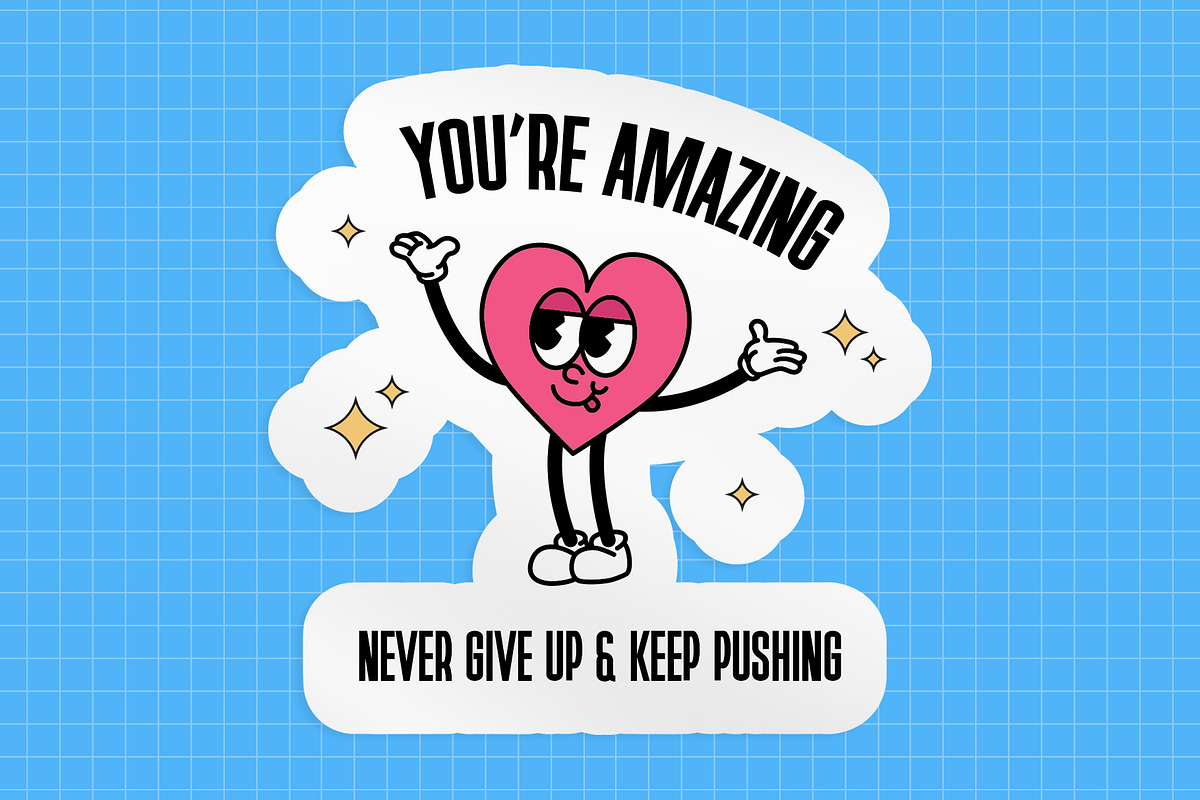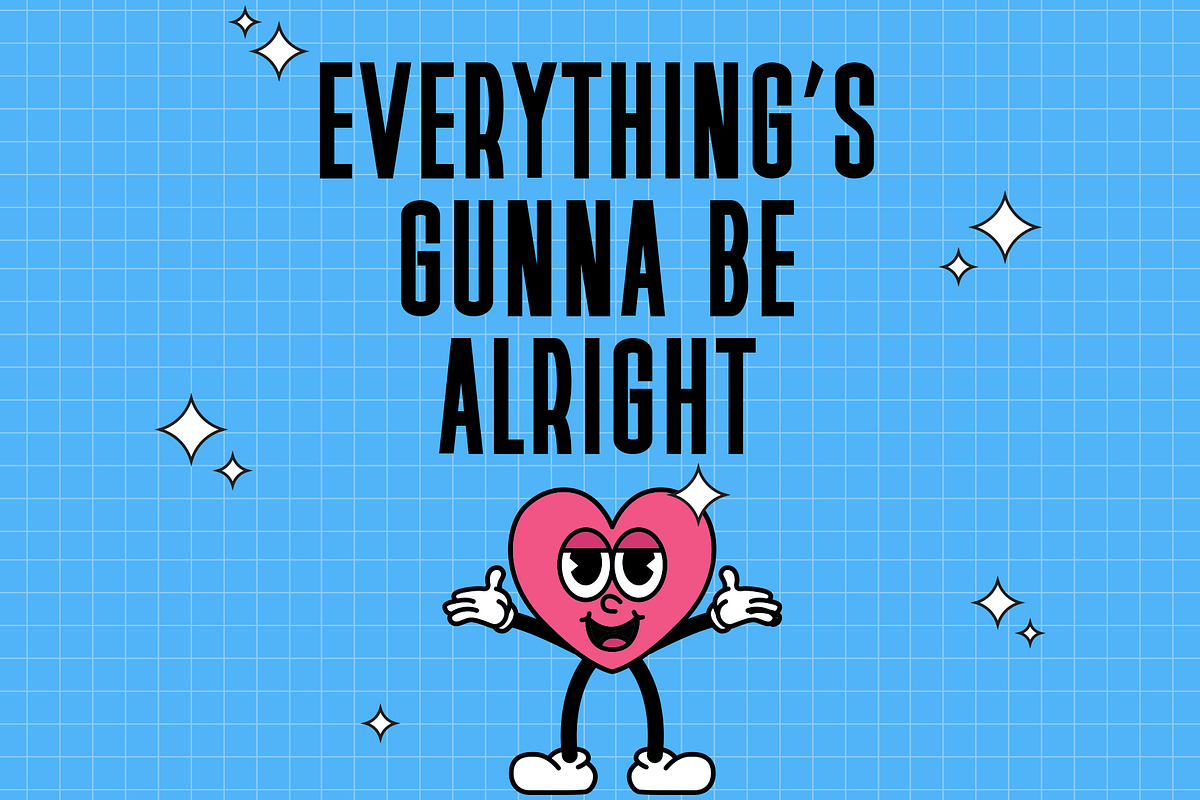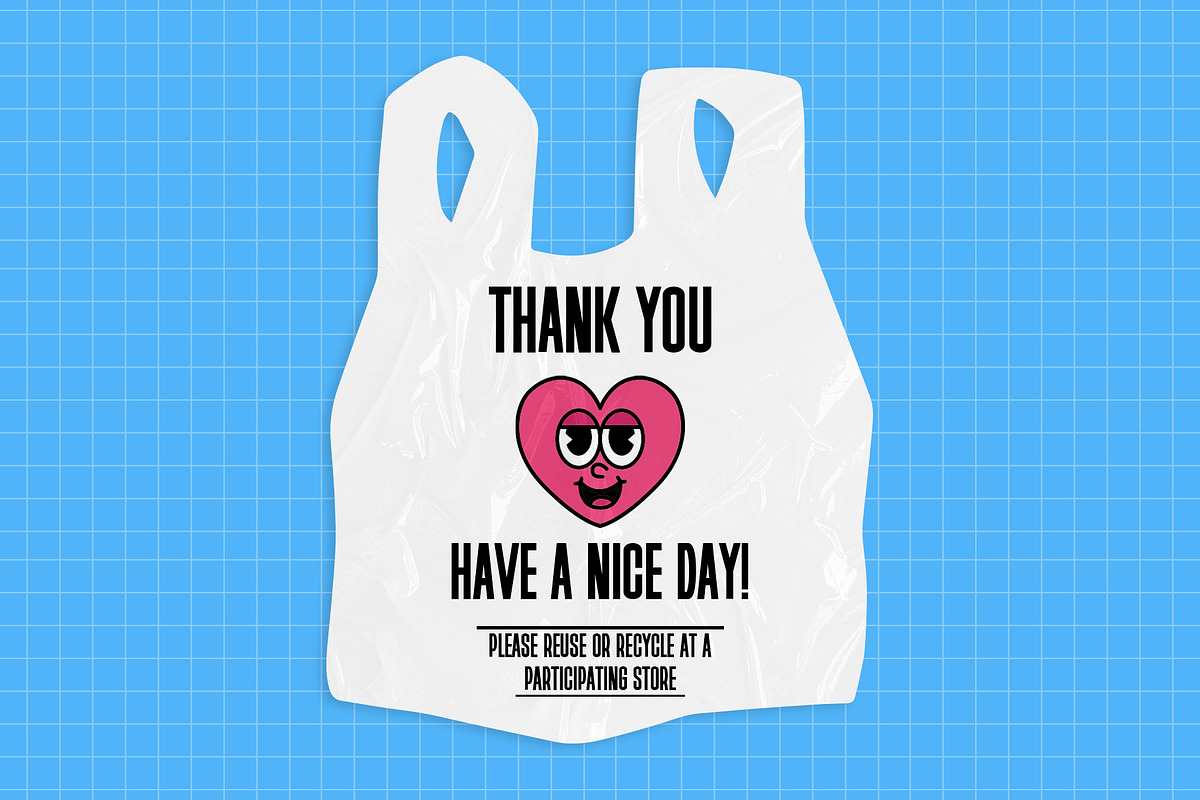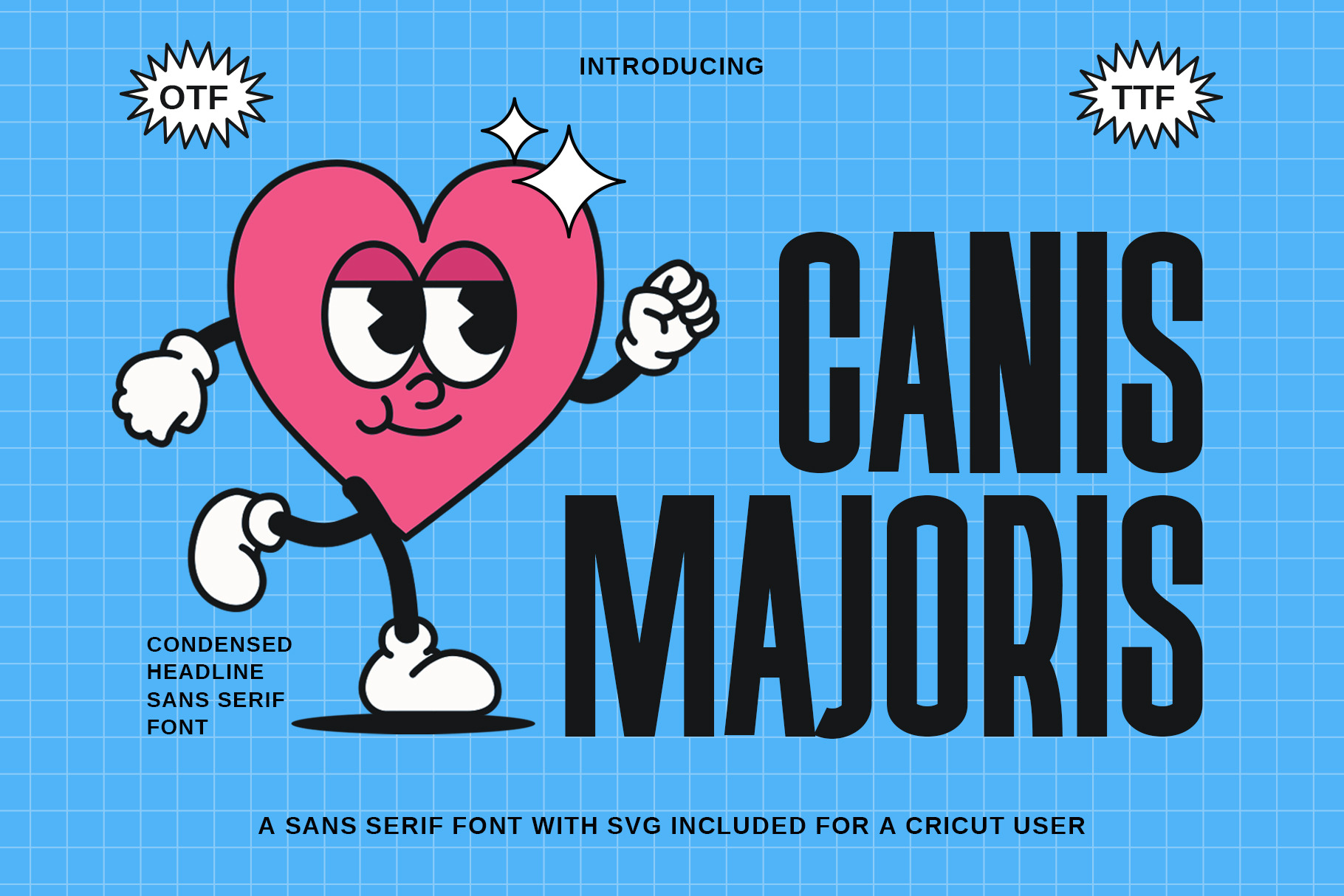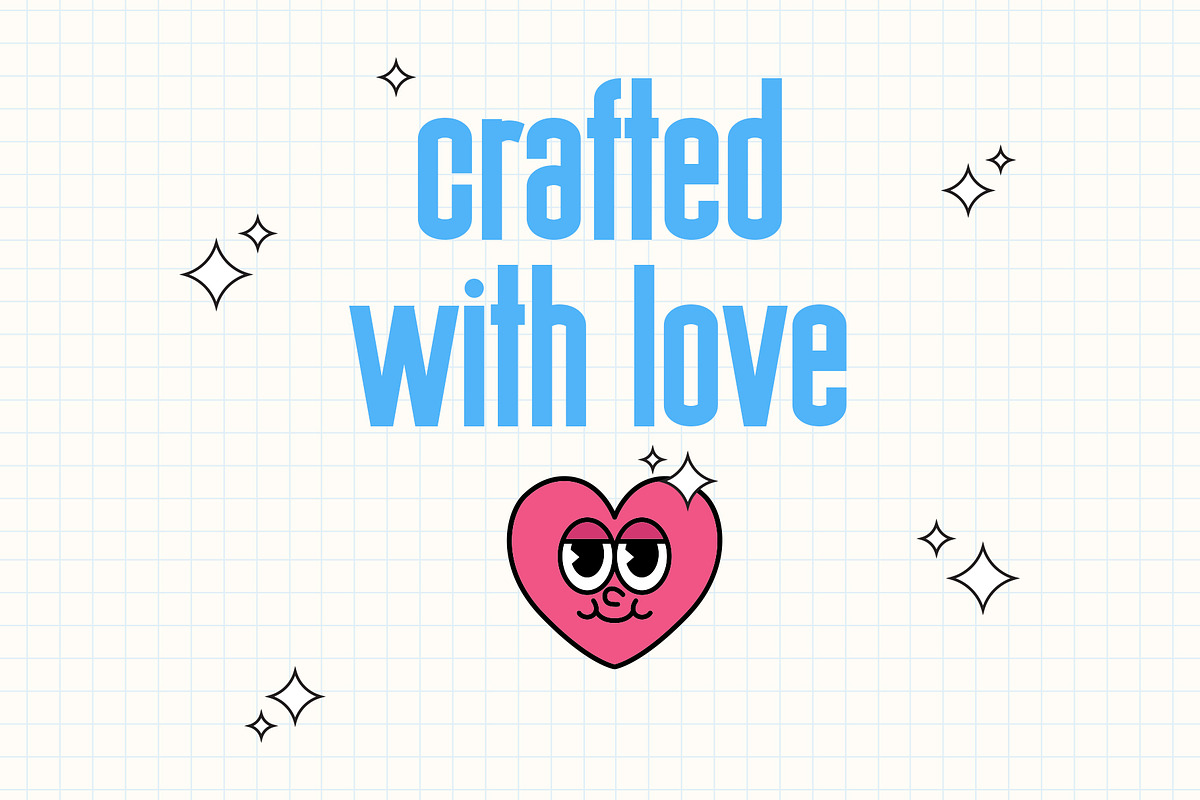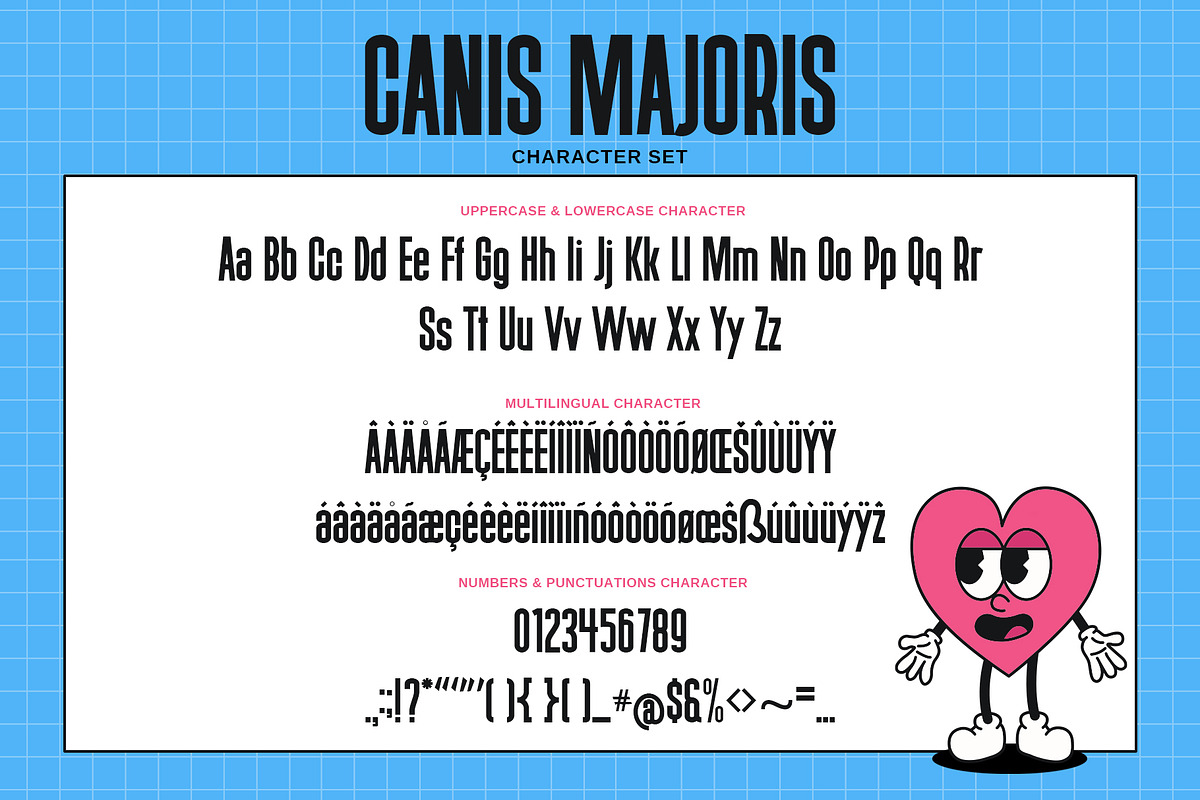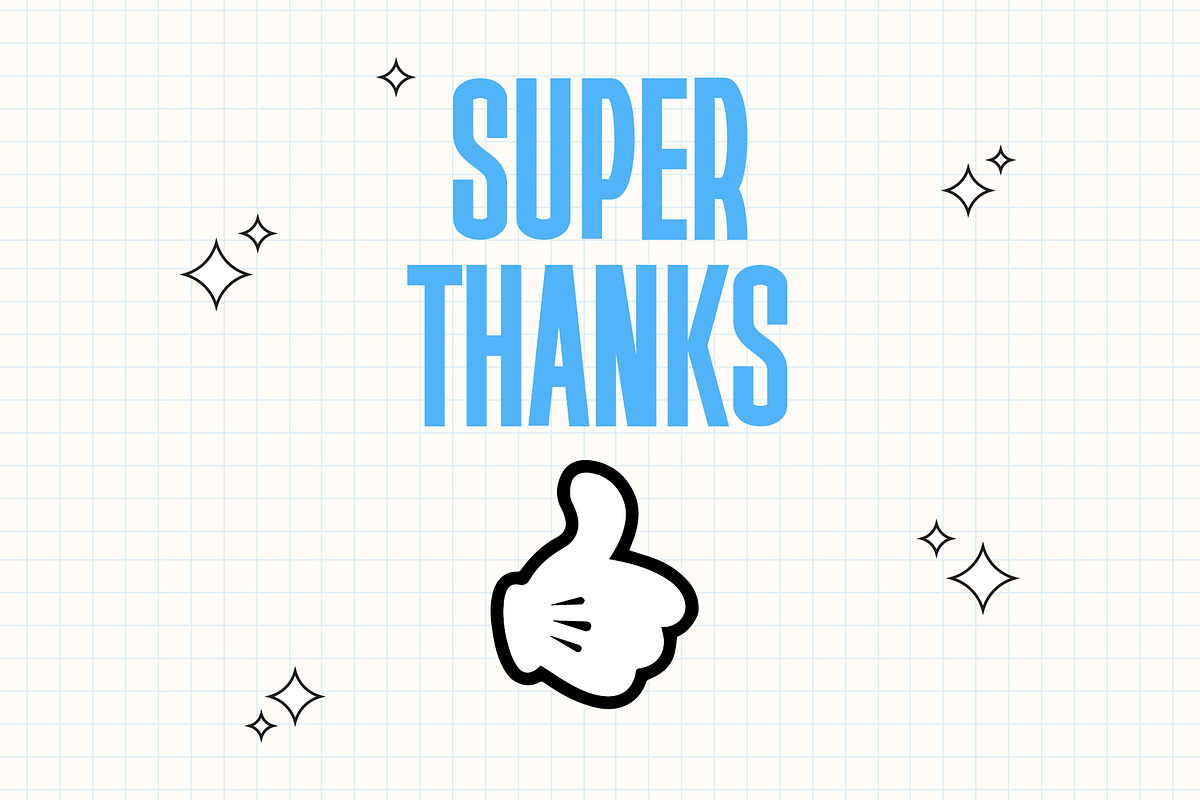
Canis Majoris - Condensed Clean Font
Canis Majoris is a modern sans serif font that features a condensed and clean style. Its design is simple yet elegant, making it suitable for a wide range of applications. This font is particularly well-suited for use in headlines, titles, and other display settings where a bold and impactful look is desired.
Its condensed nature allows for greater legibility and readability in smaller sizes, making it an ideal choice for text-heavy projects such as websites, brochures, and presentations. Overall, Canis Majoris is a versatile font that offers a clean and modern look while maintaining legibility and clarity.